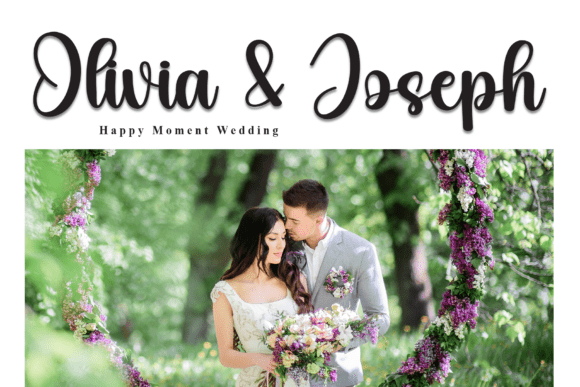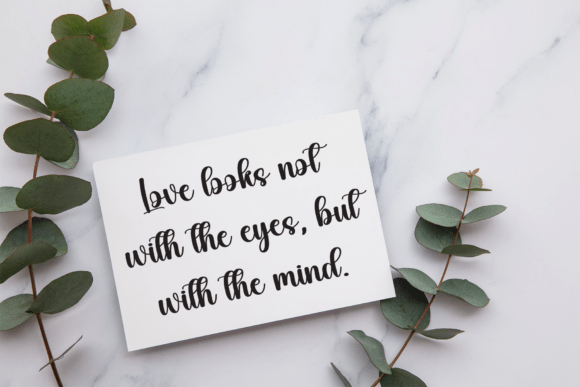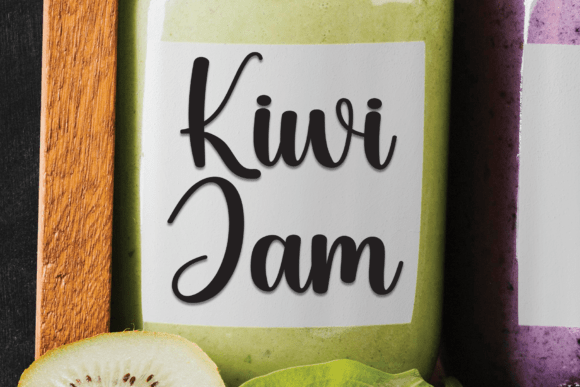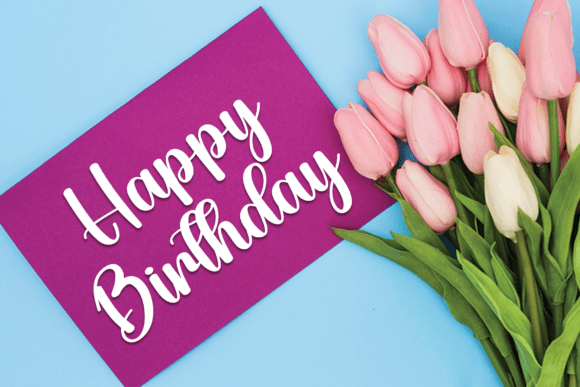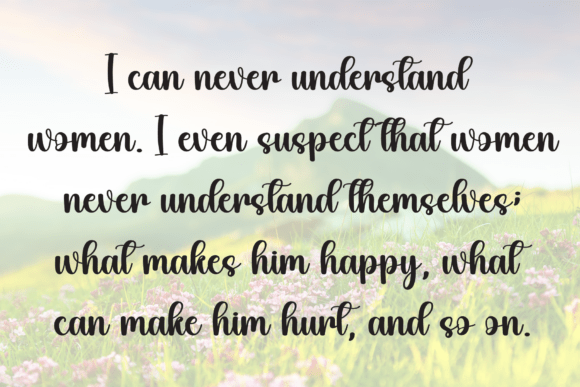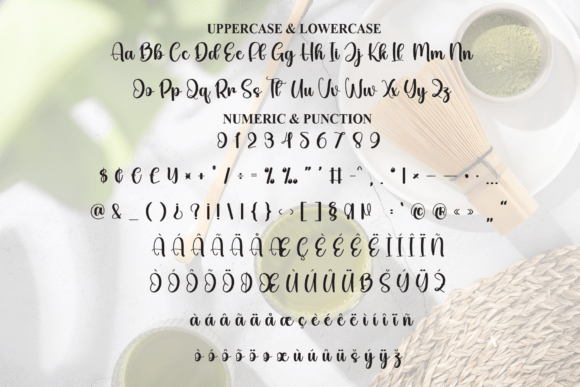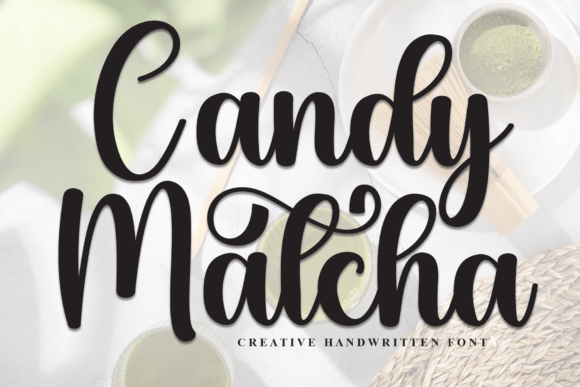
The Sweetest Font You’ll Ever Meet: Candy Matcha Font
I’ll never forget the time I was working on a wedding invitation project, and my client asked for a font that was “whimsical, yet elegant.” I scoured the internet, tried out dozens of fonts, but nothing seemed quite right. That was until I stumbled upon the Candy Matcha Font – a delightful, handwritten display font that instantly captured the playful and romantic essence of the occasion.
A Perfect Blend of Playfulness and Sophistication
The Candy Matcha Font is an irresistibly charming and genial handwritten display font, meticulously crafted with an intrinsic sense of warmth and friendliness. This font is a delightful combination of innocent playfulness and intricate design, making it a perfect companion for creating adorable wedding invitations, sentimental cards, or any creative endeavor that could benefit from a dash of whimsy!
So, what do I love about the Candy Matcha Font? Here are a few things that make it stand out:
• ✨ Unique and quirky design that’s sure to grab attention
• 💕 Extensive character set, including support for multiple languages
• 🎉 Beautifully crafted with an eye for detail and aesthetics
• 🤔 Some letters may appear a bit narrow or condensed, which can affect readability at very small font sizes
• ⚠️ Limited availability of certain OpenType features, such as ligatures or swashes
Exploring OpenType Features
The Candy Matcha Font comes with a range of OpenType features that can enhance your designs. Here are a few examples:
• Stylistic Alternates: Switch between different font styles, such as italic or bold, to add variety to your text
• Glyphs: Access additional characters, such as ligatures or swashes, to add a touch of elegance to your text
The Story Behind Candy Matcha Font
The Candy Matcha Font was designed by a talented typographer with a passion for creating unique and charming fonts. Inspired by the sweetness of childhood treats and the elegance of handwritten scripts, this font is the result of meticulous craftsmanship and attention to detail.
Is the Candy Matcha Font suitable for body text? While the Candy Matcha Font is primarily designed for display use, it can be used for body text in certain contexts, such as in children’s books or creative writing projects.